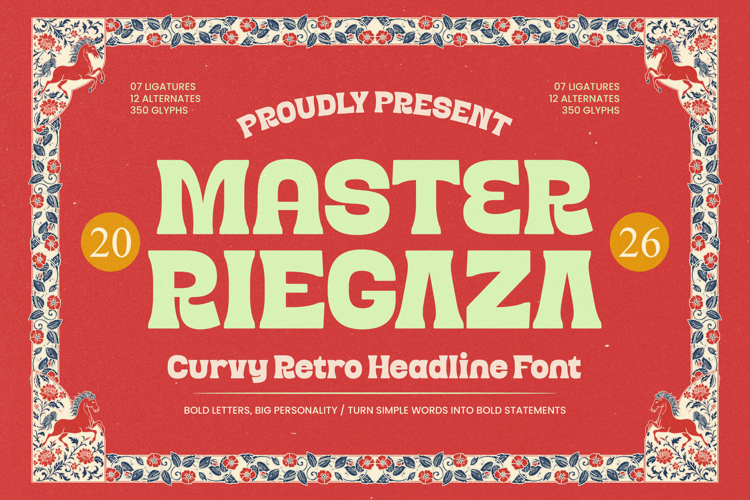
Master Riegaza - Curvy Retro Headline Font
Master Riegaza is a curvy retro headline font designed to bring bold character and nostalgic charm into modern design. Inspired by vintage signage and classic mid-century typography, this typeface features strong letterforms, soft rounded curves, and confident structure that instantly command attention. Its playful yet sturdy personality makes it ideal for posters, branding, packaging, merchandise, editorial headlines, and statement logos that need a standout retro vibe.
Equipped with 350 glyphs, 7 ligatures, and 12 alternates, Master Riegaza provides stylistic flexibility while maintaining clean readability at large display sizes. The balanced proportions and bold weight ensure impact without sacrificing clarity, making it perfect for designers who want to turn simple words into memorable, high-impact visual statements. Whether used for vintage-inspired projects or bold contemporary layouts, this font delivers personality, warmth, and timeless retro energy.